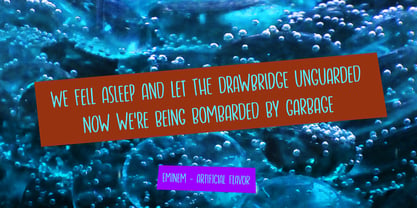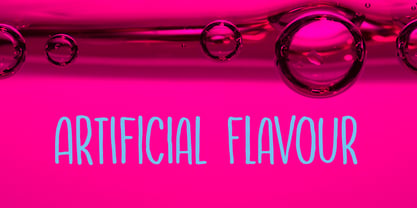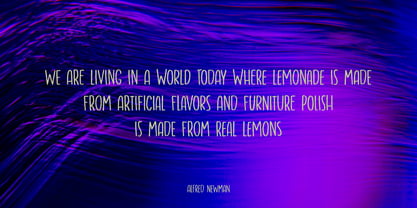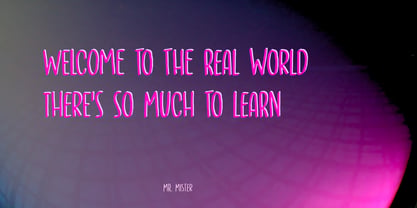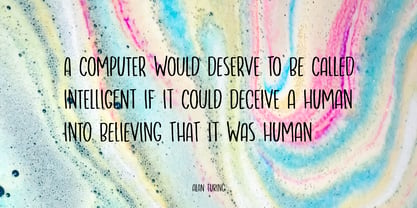
Artificial Flavour Pro
Die Schriftfamilie Artificial Flavour Pro wurde von David Kerkhoff entworfen und von Hanoded veröffentlicht. Artificial Flavour Pro enthält 2 Stile und Familienpaketoptionen. Mehr über diese Familie
I do groceries a couple of times a week. When I am shopping for food, I always read the ingredients list; I don’t want too much sugar, nor palm oil, trans fats or a lot of E numbers. It used to be quite hard finding products that didn’t contain artificial flavours or colouring, but it is getting better.
Artificial Flavour is an anti-ode to the time we couldn’t get enough of the stuff - it is a handmade, all caps font which comes with extensive language support and a sweet set of alternates.
Hanoded is run by Dutchman David Kerkhoff. His fonts are a mishmash of styles, as he just creates whatever pops into his head. You will find a lot of brush fonts in his collection, as his favourite tools are brushes and Chinese ink, with cartoon style fonts and script fonts complementing his repertoire. Aside from making fonts, David occasionally guides tours in far-flung places, renovates his '30's house and tries reasoning with his wife and (teenage) kids. Not an easy task!